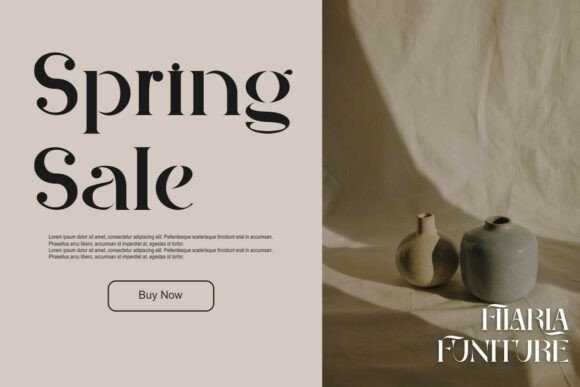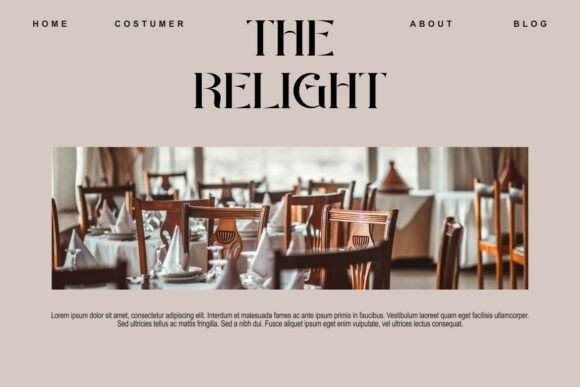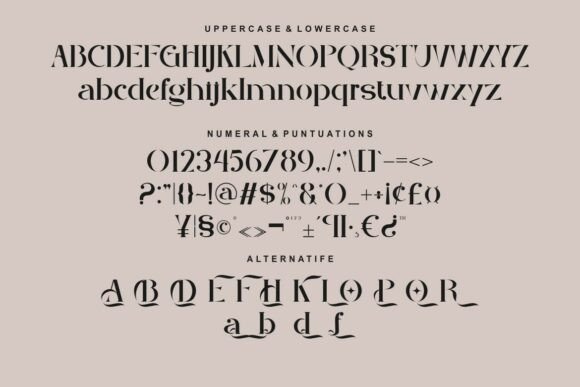
Introduction to Erifonia Font
Have you ever found yourself scrolling through design inspiration boards, stuck on a particular font that captures the essence of your creative project? For me, that moment came when I stumbled upon the stunning Erifonia Font. Its bold, serif design instantly transported me to a world of elegance and sophistication, and I knew I had to learn more.
As designers, we’re always on the lookout for that perfect font to elevate our work. Whether it’s a free download to spice up a social media graphic or a high-quality design resource for a major brand, having the right font can make all the difference. And with the Erifonia Font, you can add a touch of nostalgia and character to your designs.
With its transparent background and versatile style, the Erifonia Font is a valuable addition to any designer’s toolkit, offering endless possibilities for creative projects and designs.
Key Features of Erifonia Font
- High-quality, vector-based design for a crisp and clear display in any size.
- Features a transparent background, allowing for seamless integration with any design or image.
- Designed with a unique, elegant style that makes it perfect for various creative projects, from logos to typography-based art.
- Available in multiple sizes and resolutions, including scalable vector graphics (SVG) for high-quality display.
- Can be easily customized to suit your design needs, making it an excellent choice for designers and artists.
Honest Review: Erifonia Font
I recently had the chance to work with the Erifonia Font, and I must say it’s been a pleasant experience. As a designer, I’m always on the lookout for high-quality design resources that can elevate my creative projects.
Here are some things that work well with the Erifonia Font:
- ✨ Transparent background, making it easy to work with
- ⚠️ Limited character set, which may not be suitable for longer text-based projects
Overall, I’m quite impressed with the Erifonia Font. It’s a great design resource that can add a touch of elegance to your creative projects. While it has some limitations, I think it’s definitely worth checking out – especially if you’re looking for a free download.
Erifonia Font
The Erifonia Font is a high-quality design resource ideal for creative projects. It can be downloaded for free, making it a valuable asset for designers and artists.
Getting the Most Out of Erifonia Font
To get the most out of the Erifonia Font, consider the following tips:
- Use the font on a transparent background to create a striking design.
- Combine the font with other design elements to create a visually appealing layout.
The Erifonia Font is commonly used in:
- Graphic design projects.
- Logo design.
- Infographic design.
- Marketing materials.
Alternatives to Erifonia Font
The Great Vibes Font is a beautiful, high-quality script font that’s perfect for creative projects requiring a touch of elegance and sophistication. It’s available for free download and offers a transparent background, making it ideal for graphic design and digital art.
Compared to Erifonia Font, Great Vibes Font has a more refined and polished look, making it suitable for formal events, weddings, and high-end branding. While Erifonia Font has a more playful and casual feel, Great Vibes Font exudes luxury and sophistication.
The Carolyna Pro Font is a modern, high-quality serif font that’s designed for a wide range of design projects, from business cards to magazines and websites. It’s a popular design resource that’s available for free download and offers a transparent background, making it perfect for digital design.
Compared to Erifonia Font, Carolyna Pro Font has a more contemporary and sleek look, making it suitable for tech startups, fashion brands, and modern businesses. While Erifonia Font has a more vintage and classic feel, Carolyna Pro Font exudes modernity and innovation.
The Alex Brush Font is a beautiful, high-quality script font that’s perfect for creative projects requiring a touch of elegance and sophistication. It’s available for free download and offers a transparent background, making it ideal for graphic design and digital art.